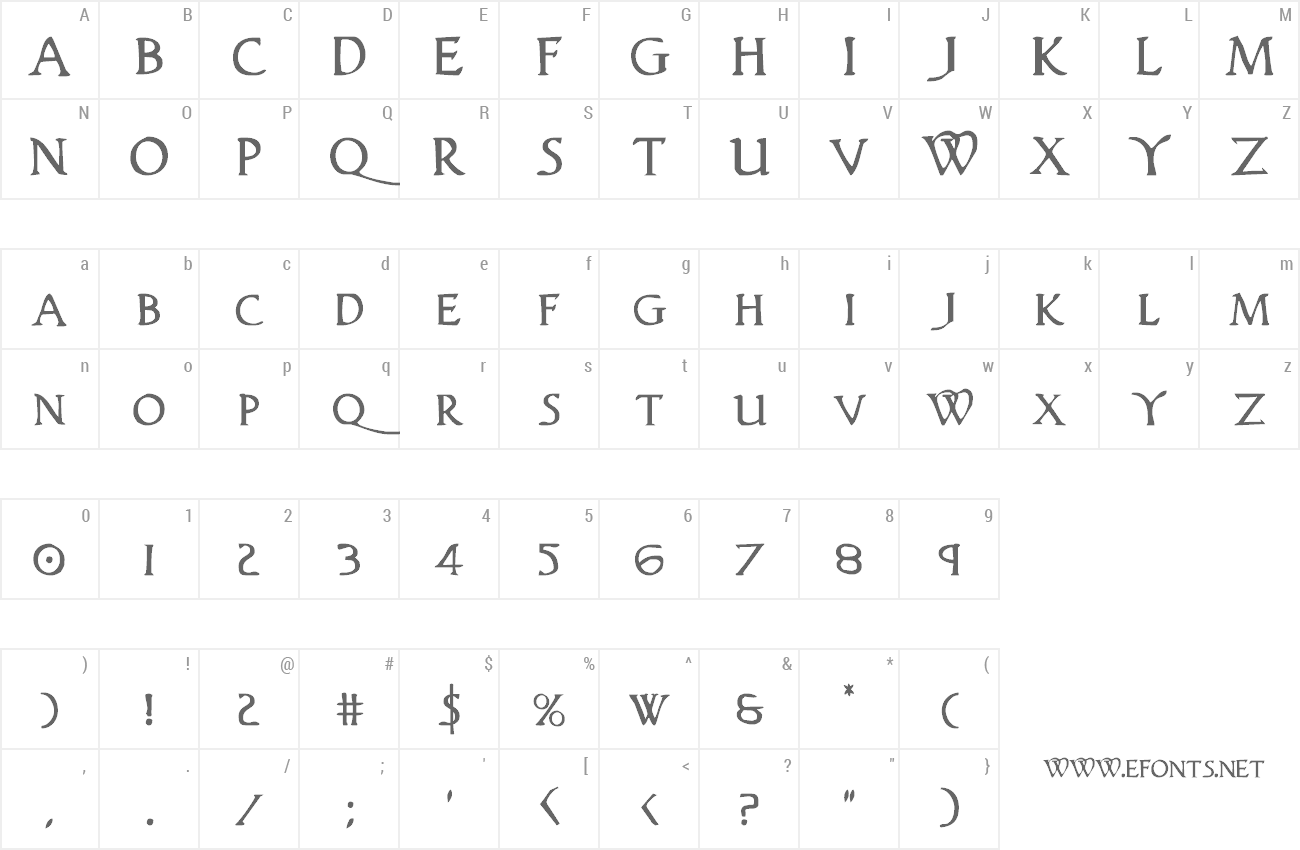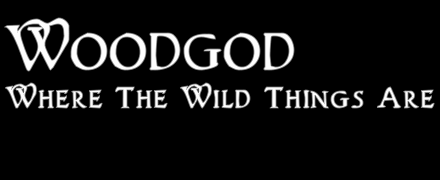
| Font name: | Woodgod |
| An eerie looking Latin font, Comes with a full Latin character set and the Euro. For information on commercial usage, please visit www.iconian.com/commercial.html |